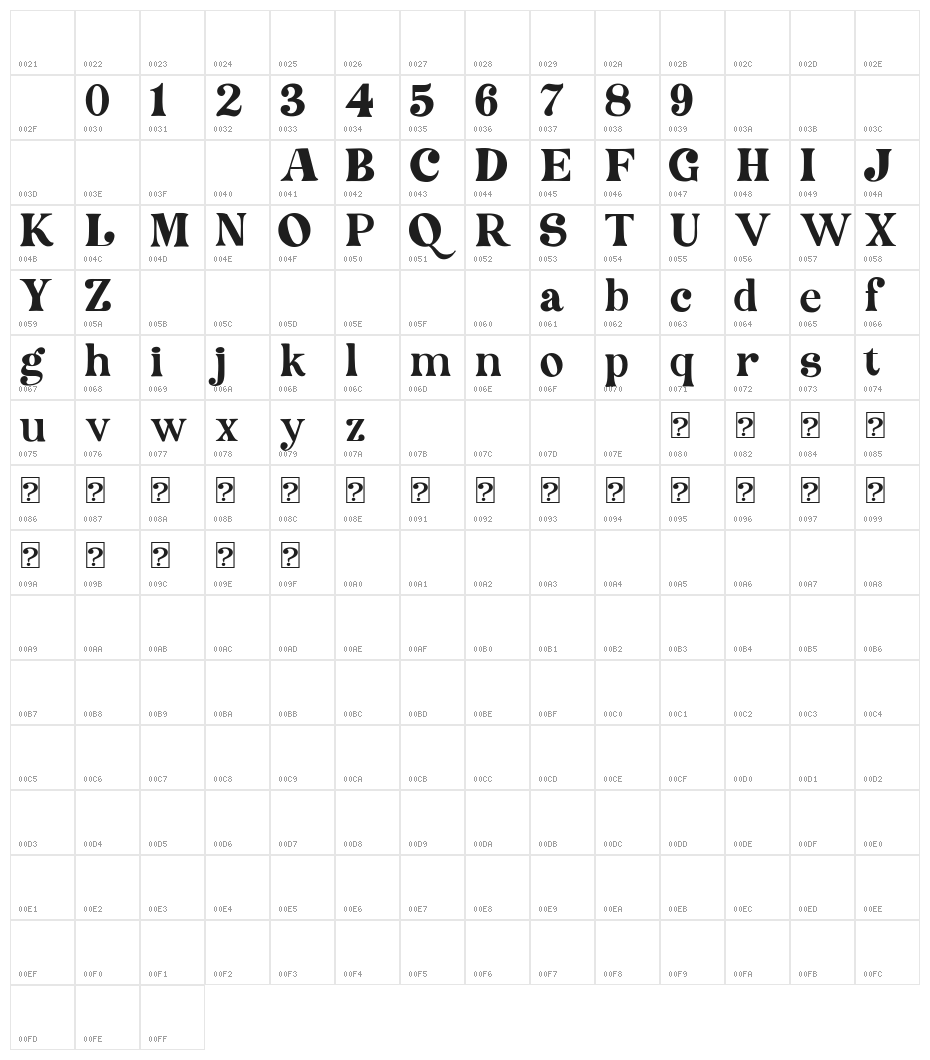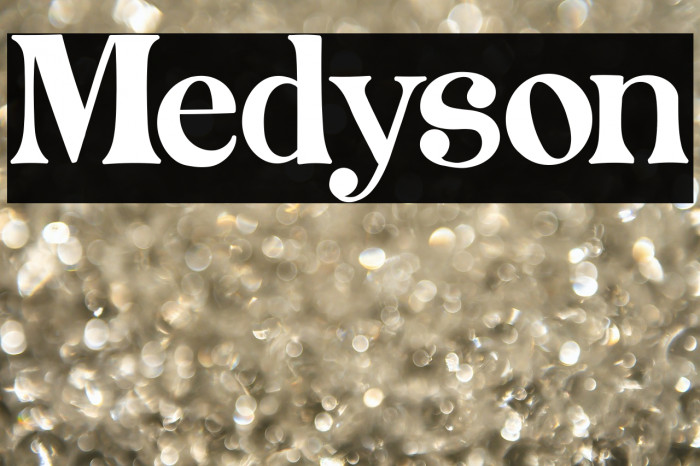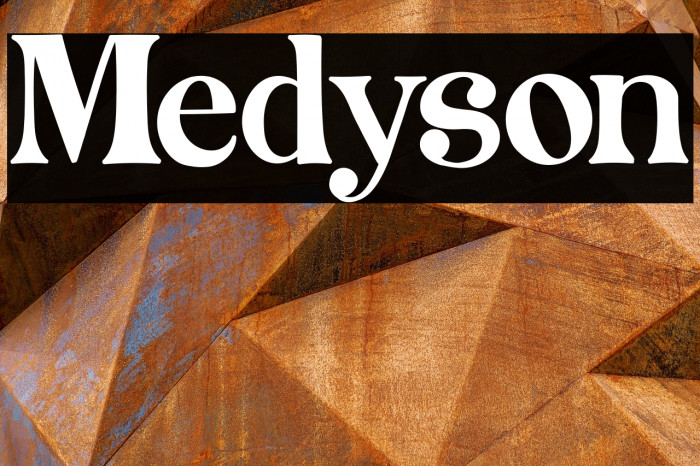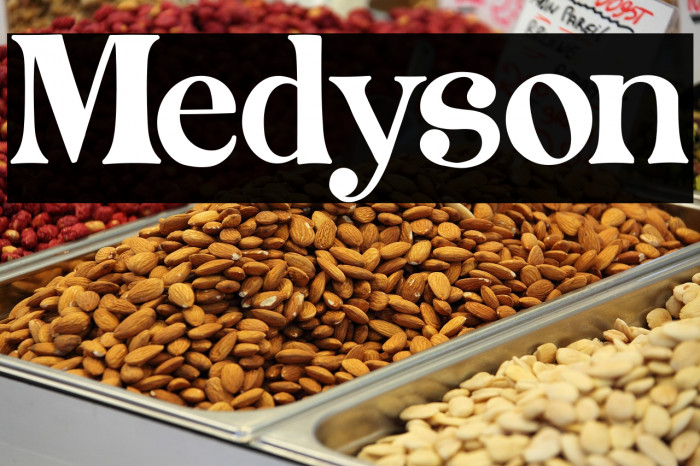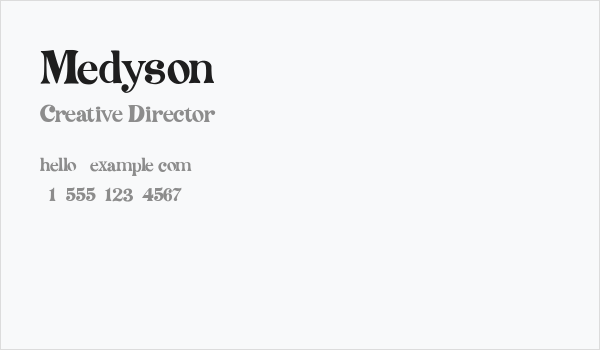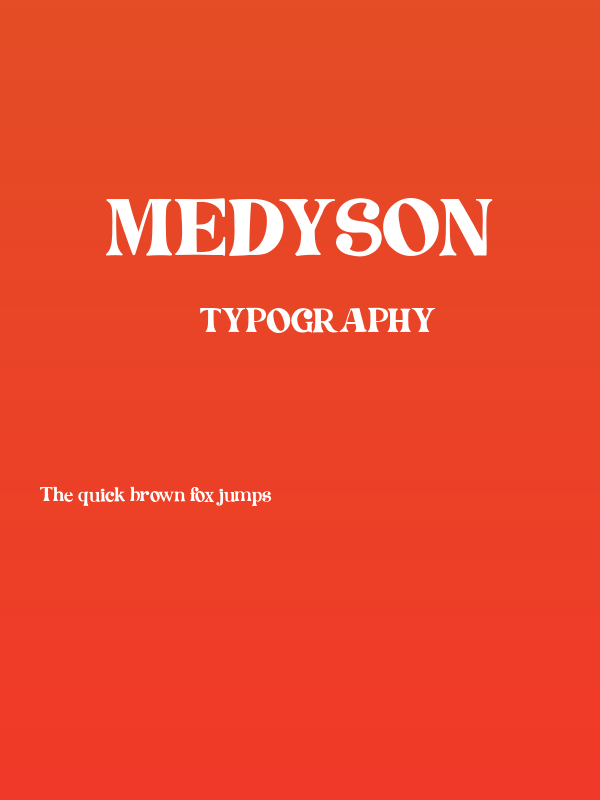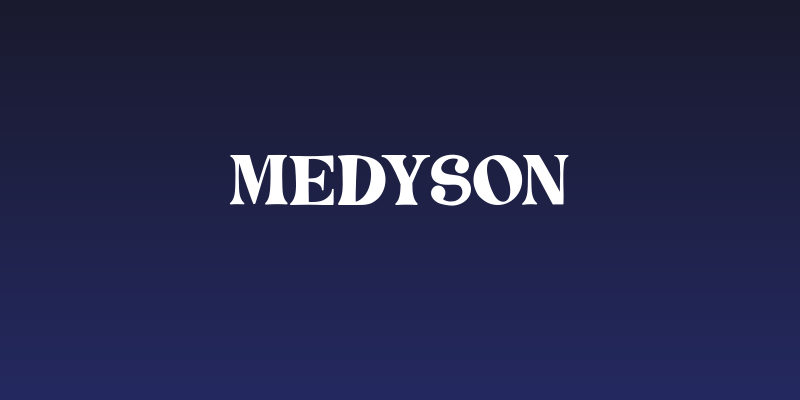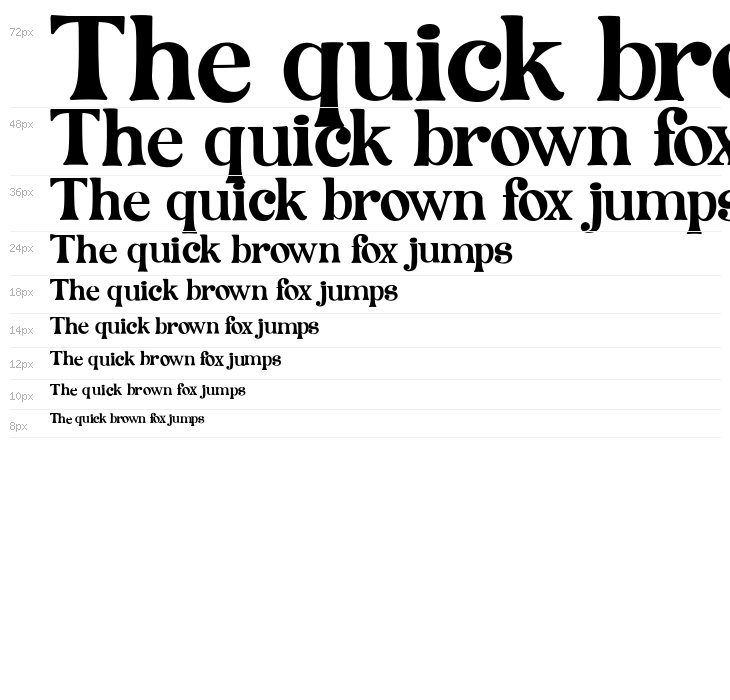
Medyson Font
Medyson Description
This font features a bold and dramatic style with high contrast between thick and thin strokes. The characters have a distinct flair, with sharp serifs and elegant curves that give it a sophisticated yet playful appearance. The uppercase letters are particularly striking, with a strong presence that commands attention. The lowercase letters maintain a consistent style, offering a harmonious balance between readability and decorative elements. The numerals are equally bold, ensuring they stand out in any context. This font is well-suited for projects that require a touch of elegance and boldness.